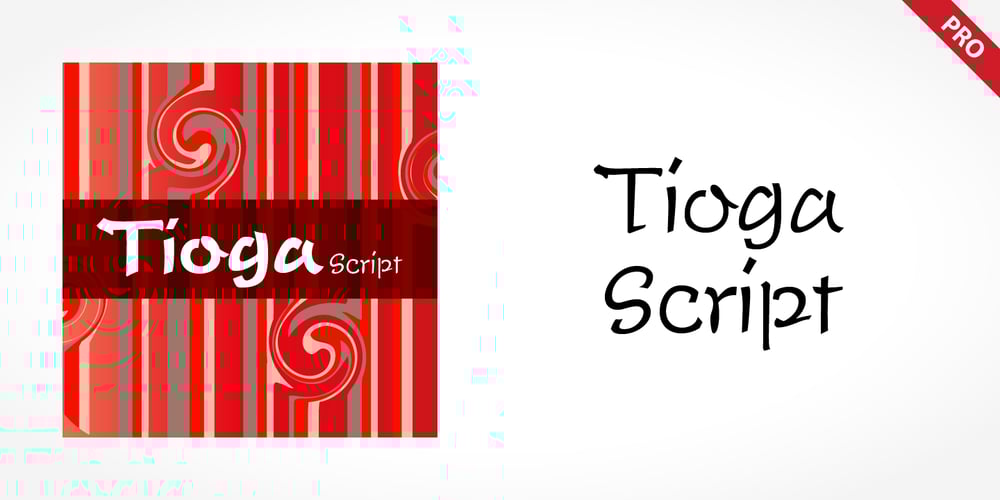
Tioga Script Pro Font Family was designed by Georg Trump and published by SoftMaker. Tioga Script Pro contains 3 styles and family package options. SoftMaker’s Tioga Script Pro typeface was designed in 1956, but feels as fresh as if it had been created yesterday. An informal script typeface that comes in three different weights. Tioga Script Pro contains OpenType layout tables for sophisticated typography. It also comes with a huge character set that covers not only Western European languages, but also includes Central European, Baltic, Croatian, Slovene, Romanian, and Turkish characters. Case-sensitive punctuation signs for all-caps titles are included as well as many fractions, an extensive set of ligatures, and separate sets of tabular and proportional digits.